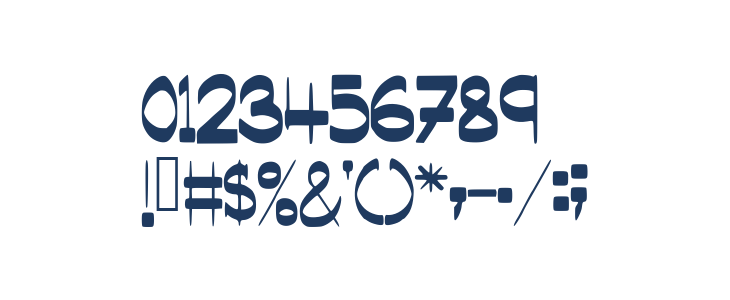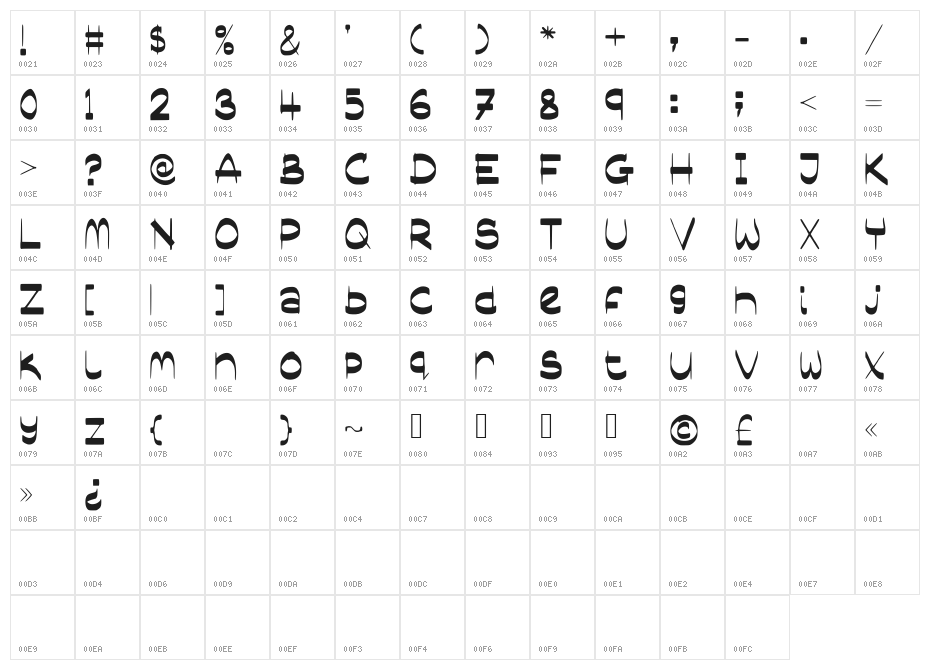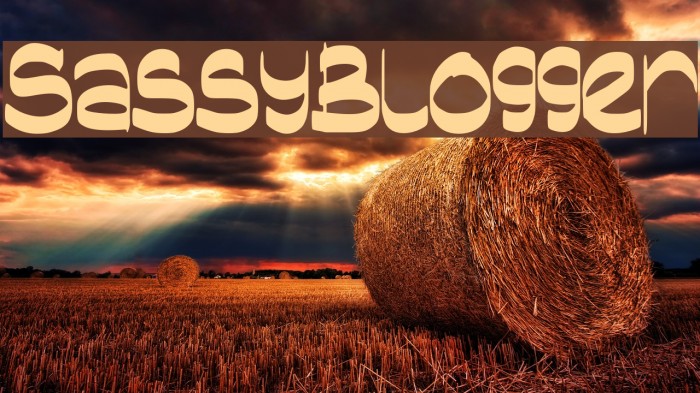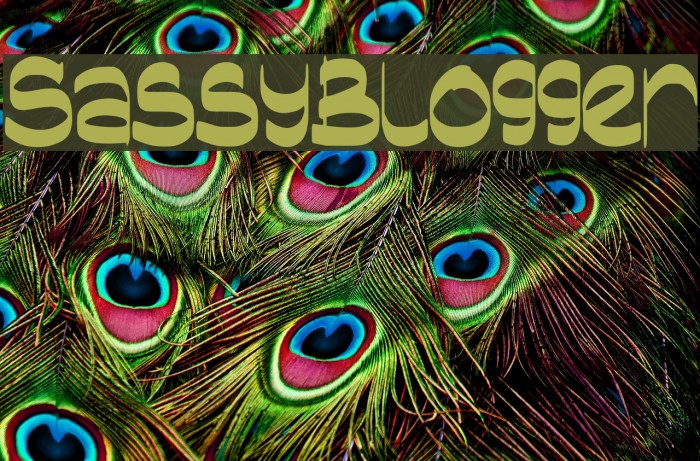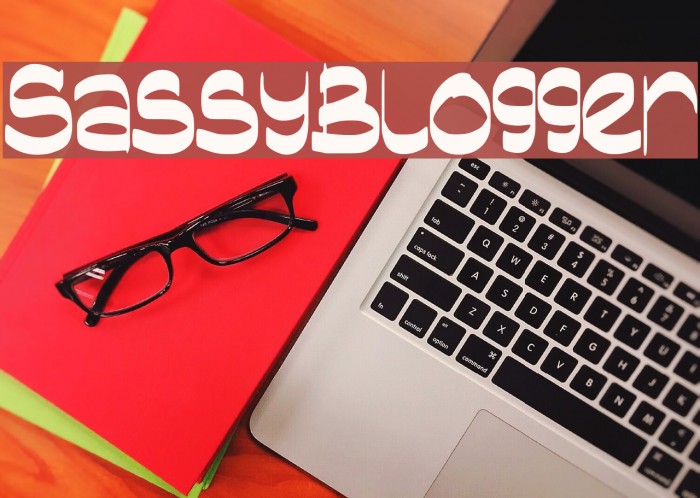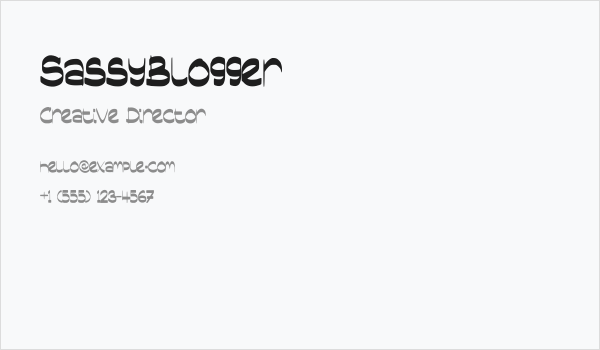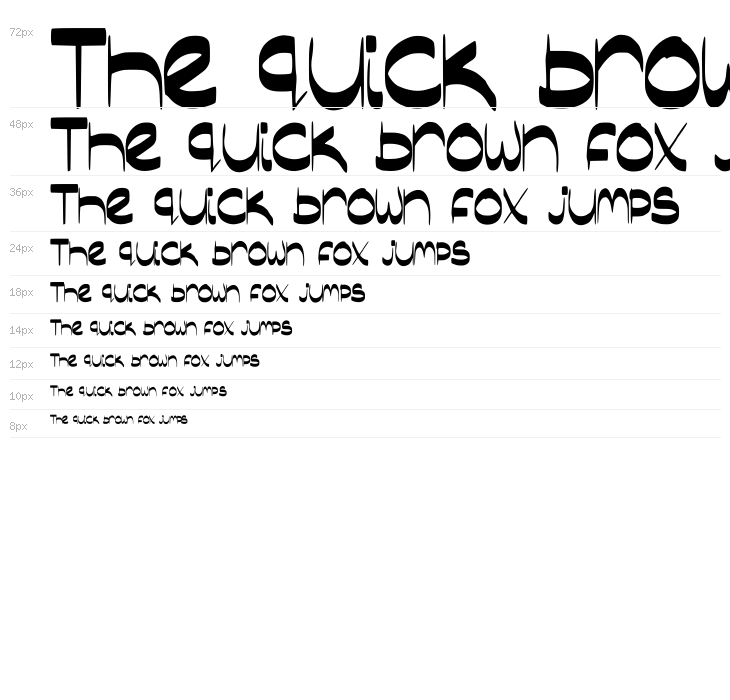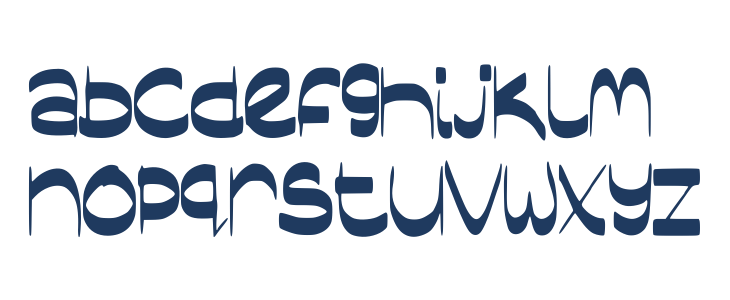
SassyBlogger Font
SassyBlogger Description
This font features a bold and dynamic style with a unique blend of sharp angles and smooth curves. The uppercase letters are characterized by their strong geometric forms, while the lowercase letters maintain a playful and slightly whimsical appearance. The numbers are bold and consistent, matching the overall aesthetic of the alphabet. Special characters are creatively designed, adding to the font's distinctive personality. The font's thick strokes and high contrast make it stand out, ideal for attention-grabbing designs.
| Proposed Projects | Ideal for branding, poster design, and creative projects that require a bold statement. |